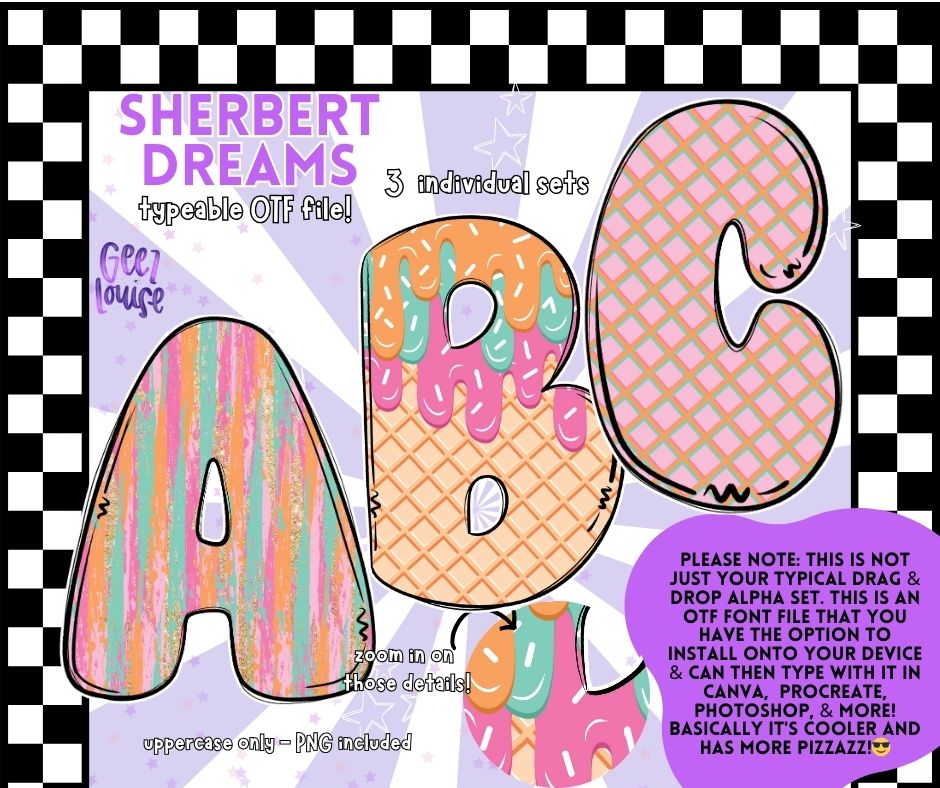
Sherbert Dreams - Summer Ice Cream OTF Font + PNG Alpha Set
Dreaming of endless summer days? Our Sherbert Dreams OTF Font is here to make it sweeter! 🍦🌈 Featuring pastel ice cream drips, colorful stripes, and playful lattice designs, this summer font set is perfect for sublimation projects, ice cream party decor, summer shirts, and sweet shop signs.
✔️ 3 individual font sets included (drip, stripe, lattice)
✔️ Uppercase letters only for a bold, fun look
Whether you’re creating party invites, dessert shop branding, or colorful summer designs, this sherbert-themed font is pure sugary magic. 🍬☀️